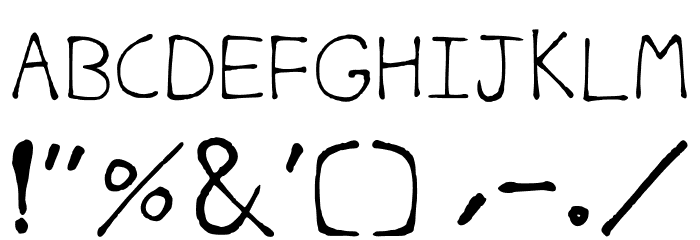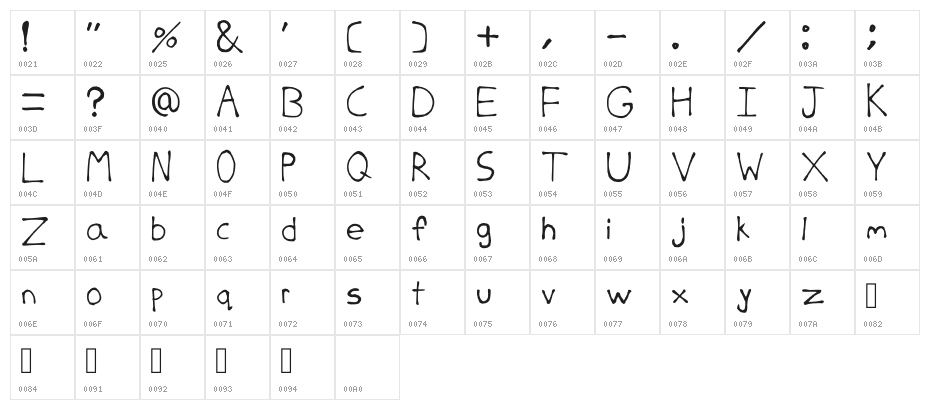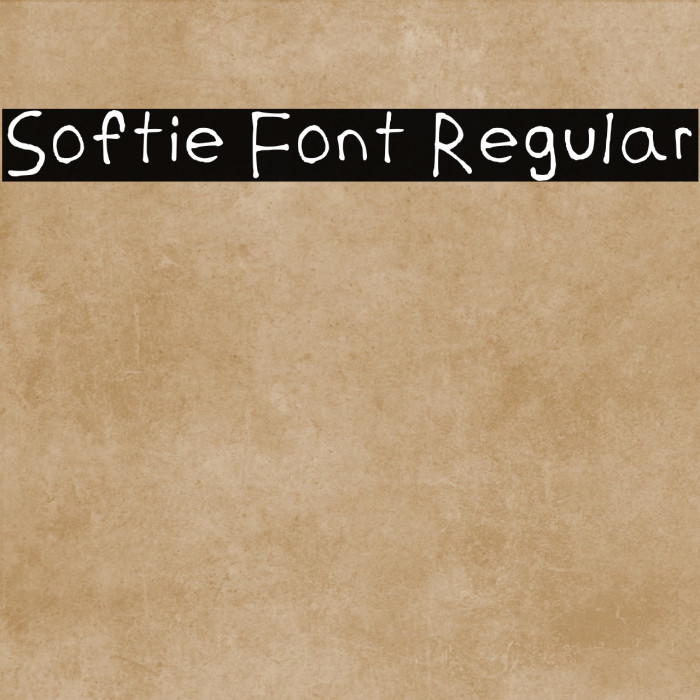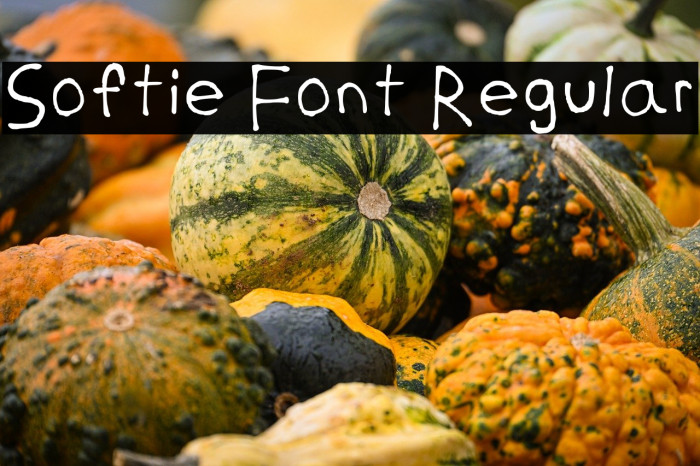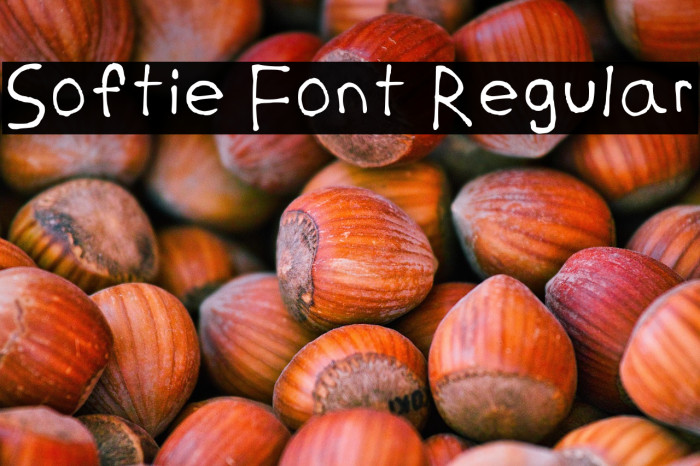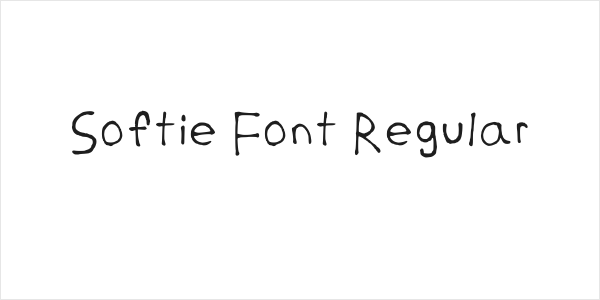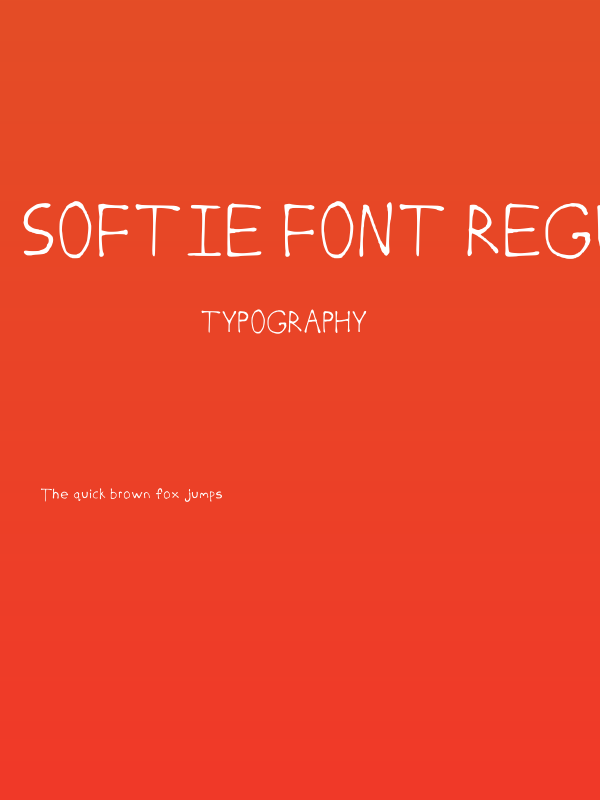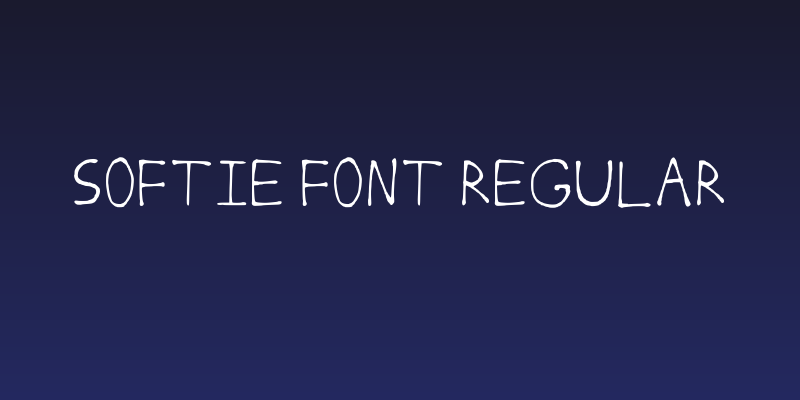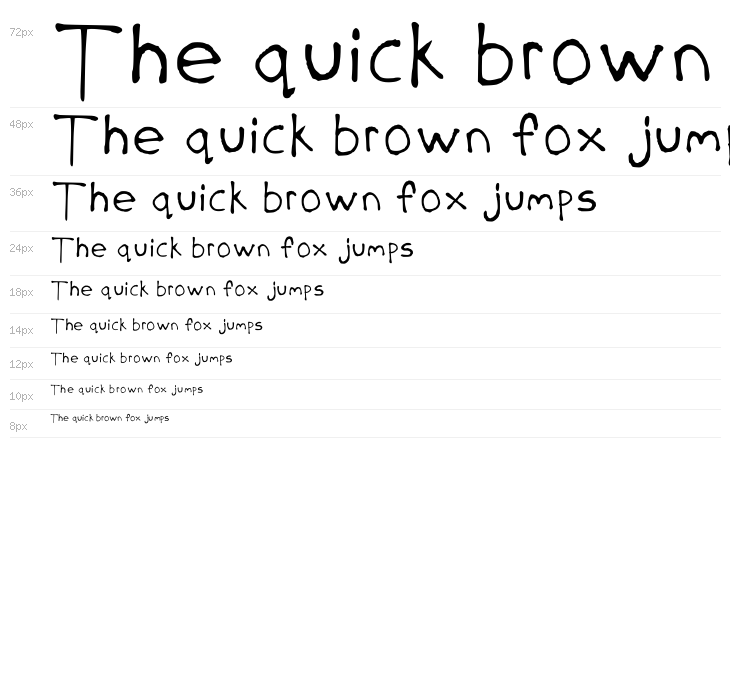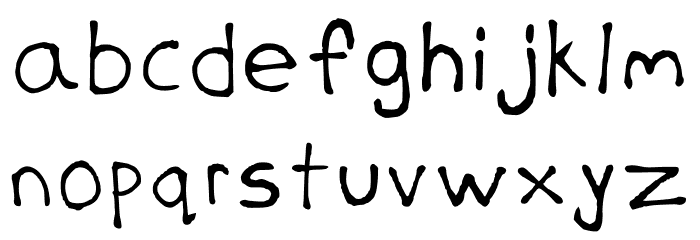
Softie Font Regular Font
Softie Font Regular Description
This font features a playful and informal style, characterized by its hand-drawn appearance. The letters have a slightly irregular shape, giving them a whimsical and friendly feel. The strokes are consistent in thickness, contributing to a cohesive look across all characters. The uppercase and lowercase letters maintain a uniform height, while the numbers and special characters blend seamlessly with the alphabet. This font's casual and approachable design makes it suitable for projects that require a personal touch.
| Proposed Projects | Ideal for children's books, greeting cards, casual invitations, and playful branding. |